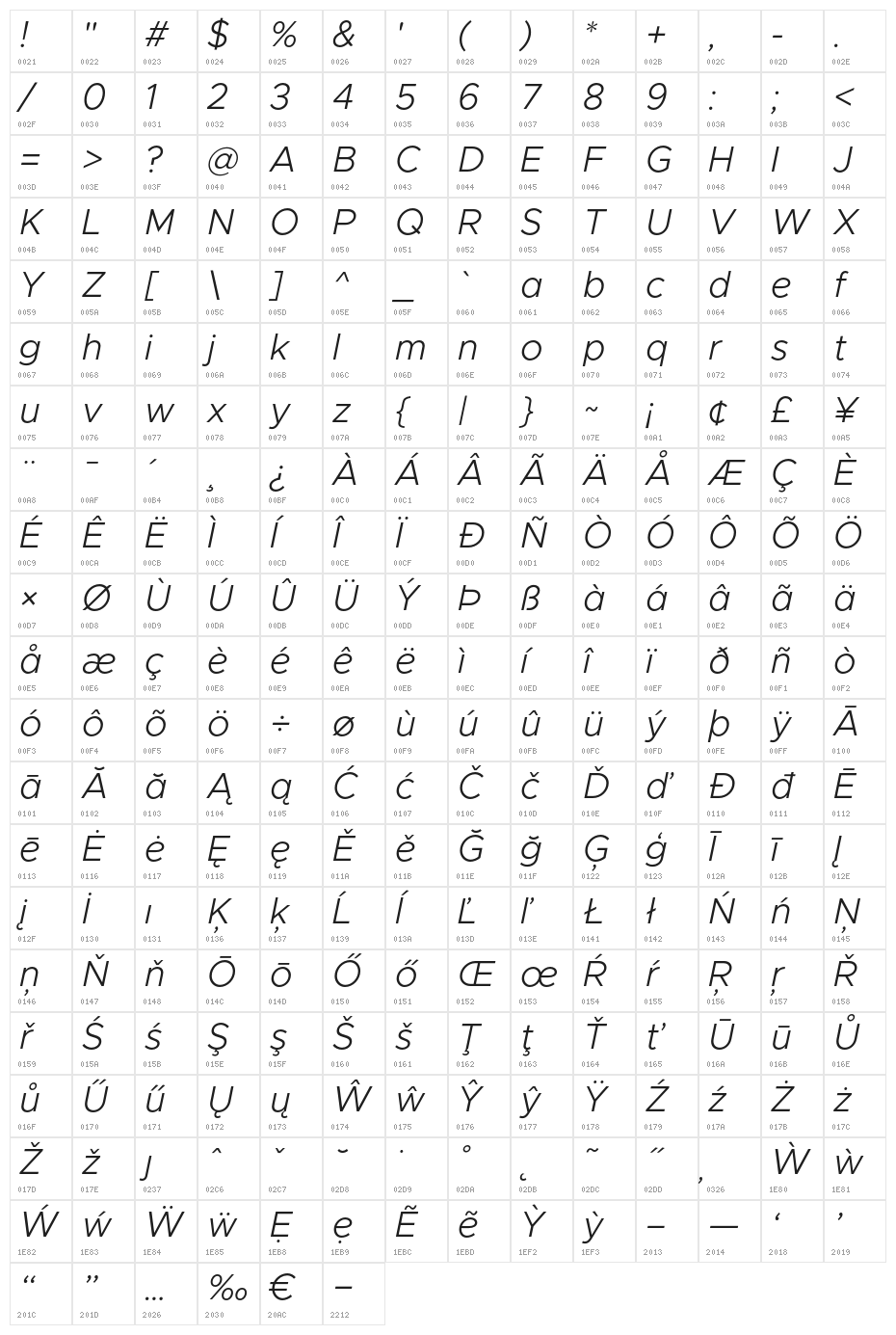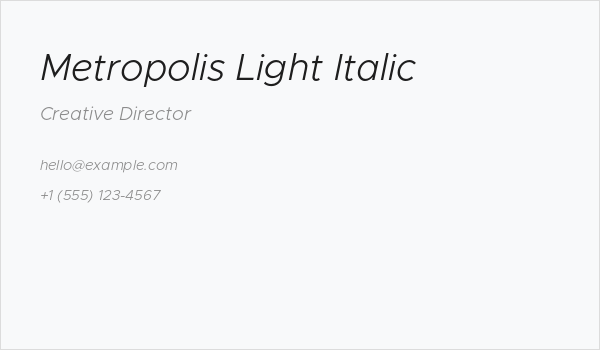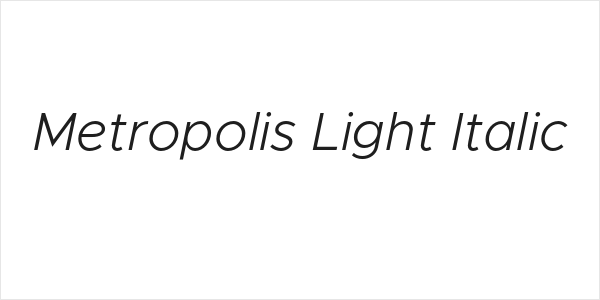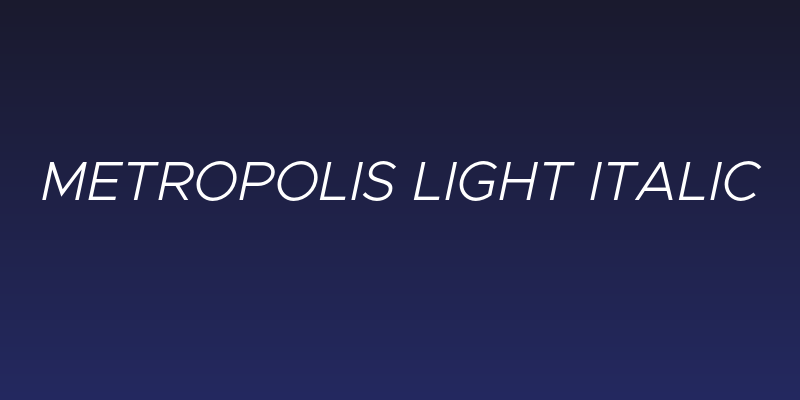
Metropolis Light Italic Font
Metropolis Light Italic Description
This font features a sleek, modern design with a light weight and italic style. The characters are elegantly slanted, providing a sense of motion and sophistication. The sans-serif design ensures clarity and readability, making it suitable for various applications. The font maintains a consistent stroke width, contributing to its clean and minimalist appearance. The character spacing is normal, allowing for easy reading without feeling cramped. Overall, this font exudes a contemporary and stylish vibe, perfect for modern design projects.
| Proposed Projects | Ideal for branding, editorial design, websites, and modern advertising campaigns. |